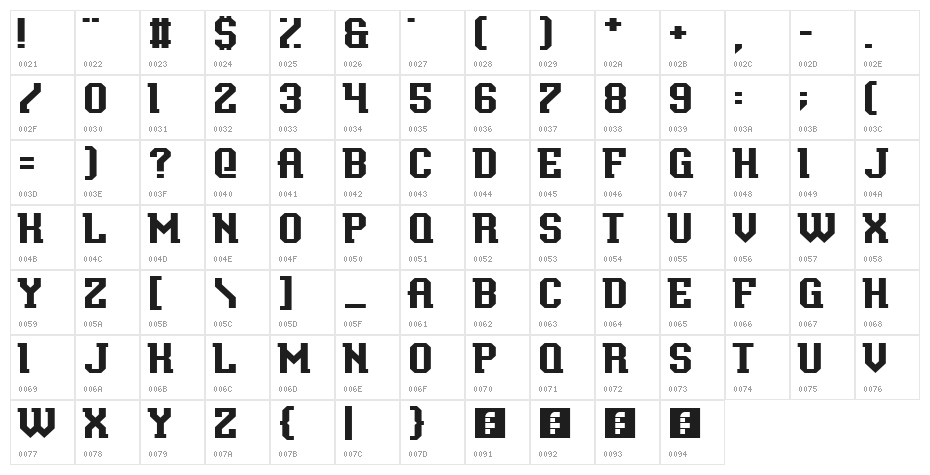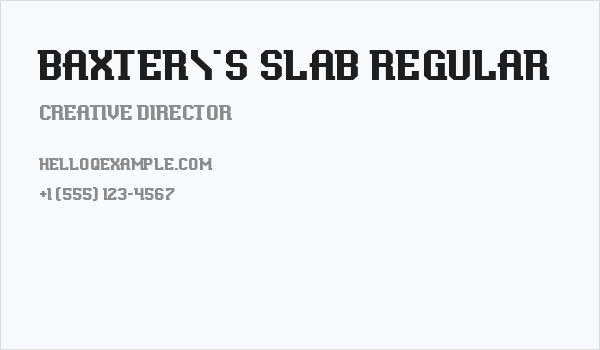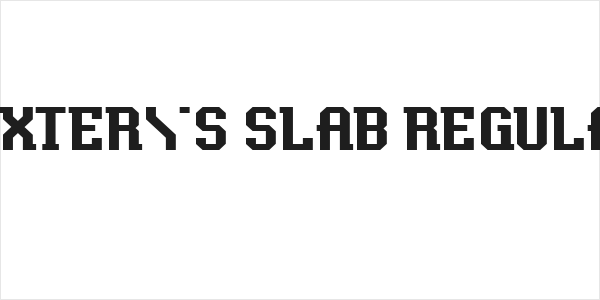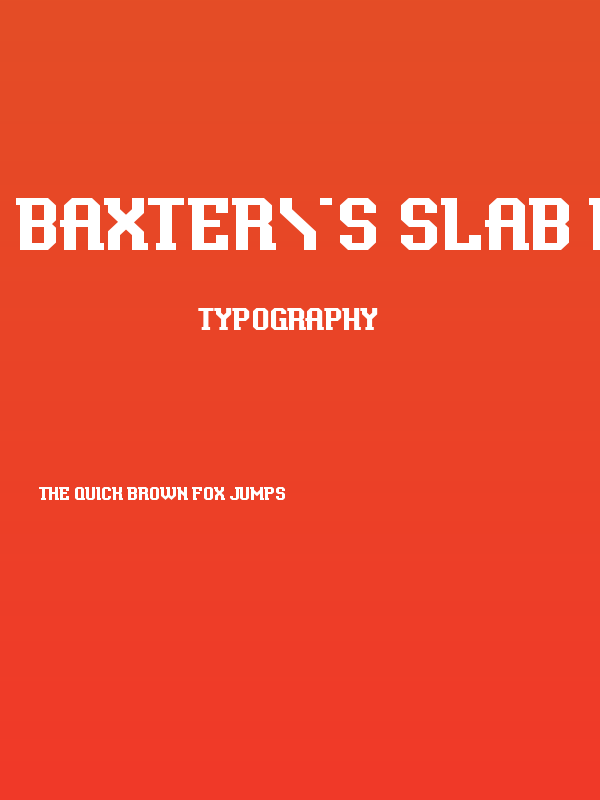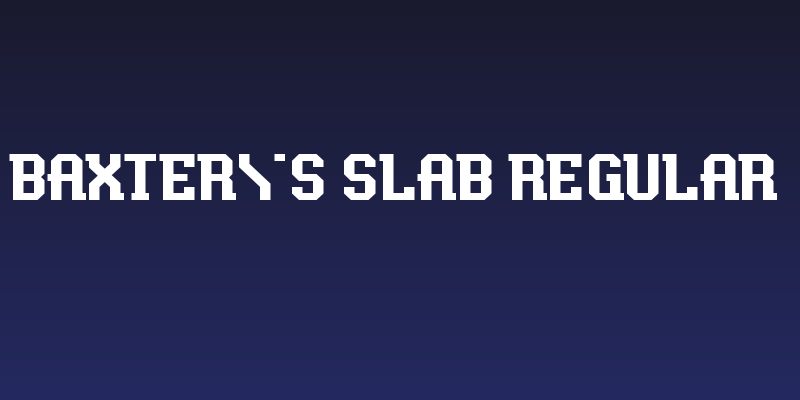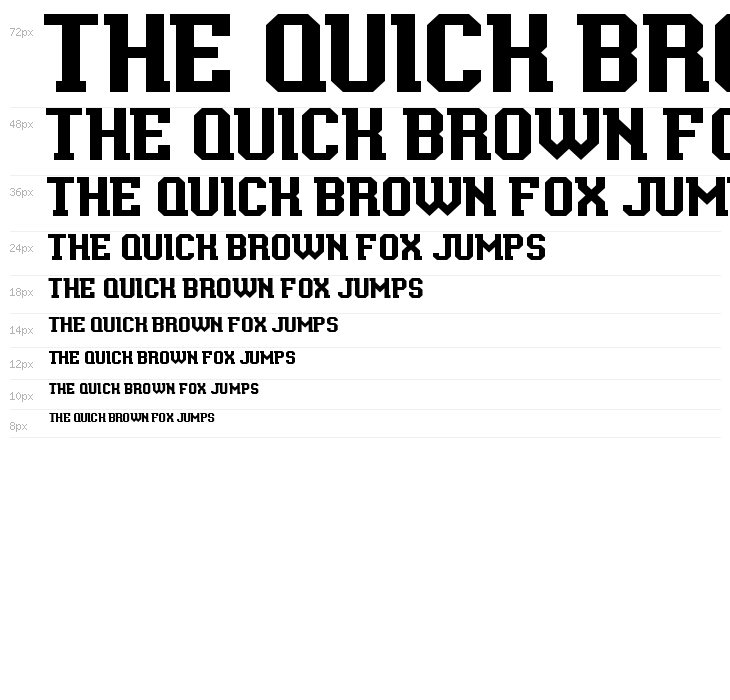
Baxter's Slab Regular Font
Baxter's Slab Regular Description
This font exhibits a bold and robust slab serif style, characterized by thick, block-like serifs and a strong geometric structure. The uppercase letters are uniform in height and width, providing a sense of stability and strength. The lowercase letters maintain a consistent weight, complementing the uppercase with a slightly condensed appearance. Numerals are equally bold, ensuring readability and impact. The special characters are designed with the same boldness, making them stand out distinctly. This font's overall design is reminiscent of vintage typefaces used in signage and posters, offering a classic yet modern appeal.
| Proposed Projects | Ideal for branding, posters, signage, and any project requiring a strong, impactful typeface. |